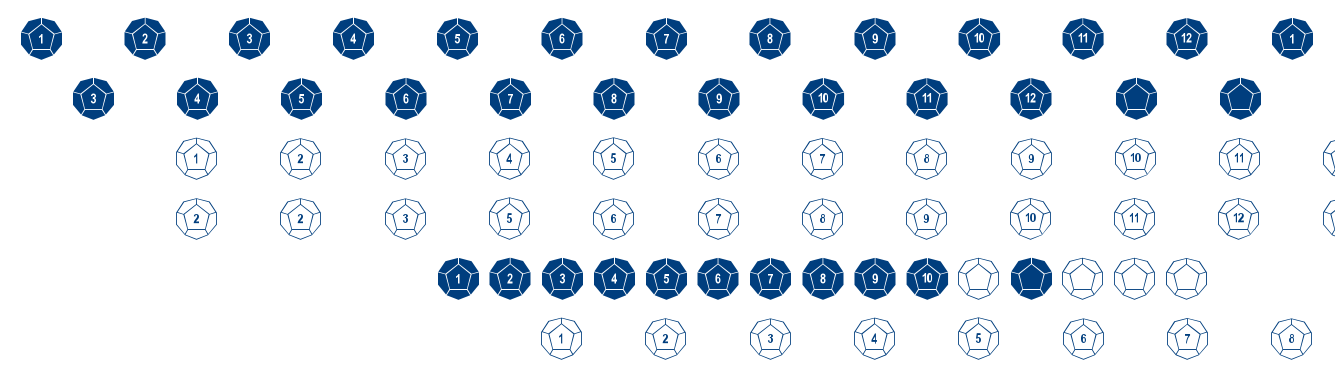
Tiny Small Medium Large Dodecahedron font Neale Davidson Website Dodecahedron.ttf Download 1091 downloads Freeware Category: Dingbats » Various TTF – Dodecahedron This is a ding font of 12 sided dice, in solid or outline flavors. Character Map specimen sheet